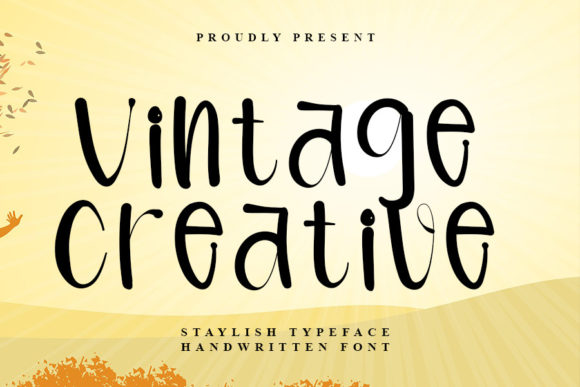
Journey through the annals of time with Vintage Creative Font, an elegant and alluring script font family. Meticulously crafted by Inermedia STUDIO, this font is a testament to the enduring charm of yesteryear. Its graceful curves and nostalgic flair imbue a sense of timeless sophistication to your designs.
Ignite your imagination and let the Vintage Creative Font carry you away to a bygone era. With its natural and unique style, this font adapts effortlessly to a myriad of design projects, limited only by the boundaries of your creativity. From captivating logos that exude a vintage allure to enchanting wedding invitations that evoke a sense of romance, Vintage Creative Font transforms ordinary words into works of art.
Step into the world of Vintage Creative Font and discover a font that speaks to the heart. Its soft, flowing lines dance upon the page, inviting you to craft designs that resonate with your audience. Let your words take center stage, adorned in the timeless beauty of Vintage Creative Font, and watch as they captivate and inspire.